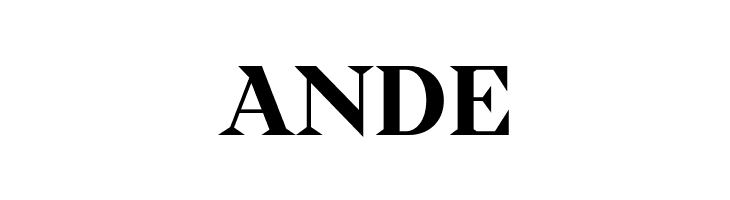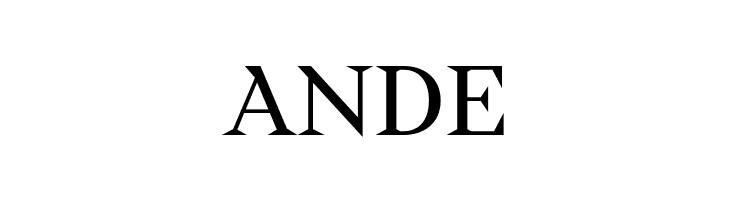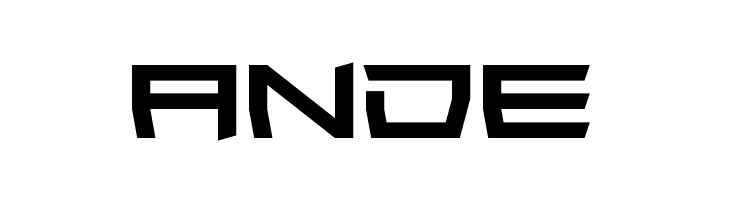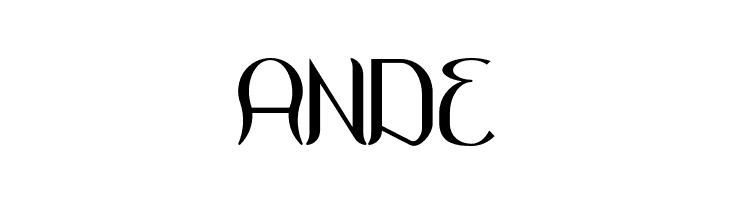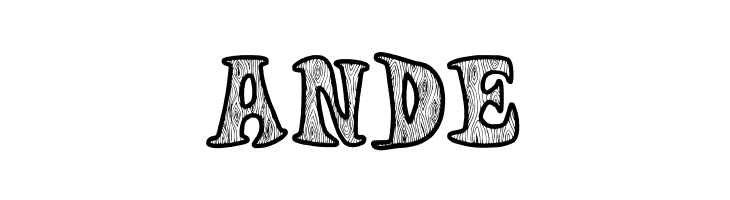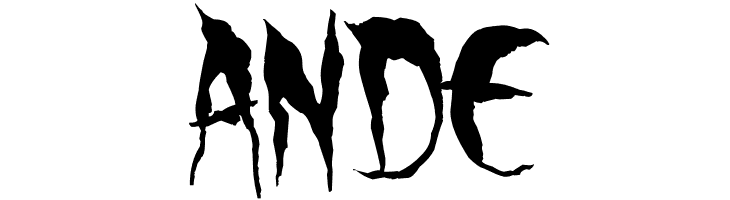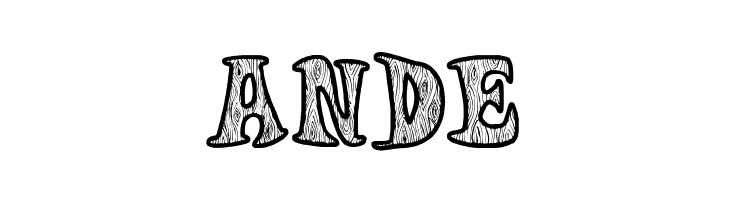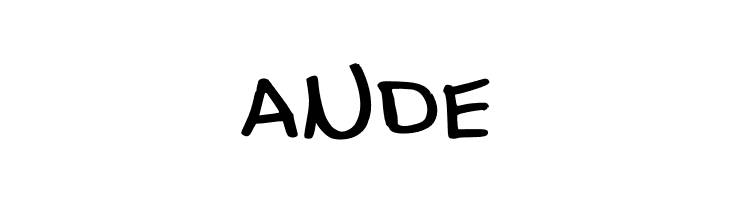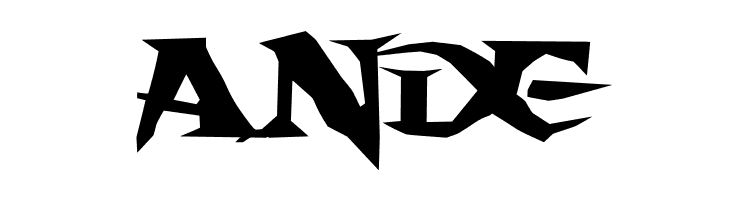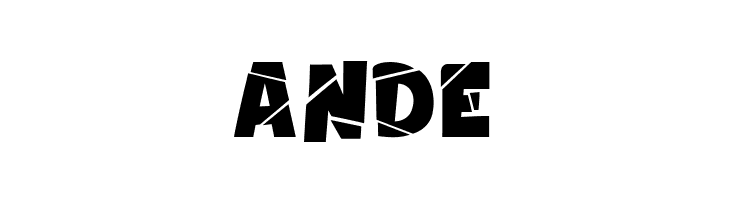
A clean, modern sans-serif font with a semi-bold weight and balanced proportions.
A sleek, semi-bold italic font with a modern and elegant design.
A bold, fragmented font with geometric and modern design elements.
A bold, brush-style font with dynamic, hand-painted strokes.
A bold, jagged font with sharp edges and a wild, energetic style.
A wild, jagged font with a raw, primal aesthetic.
An elegant script font with decorative swirls and modern flair.
A bold, geometric font with a modern and industrial style.
A bold, decorative font with playful curls and thick strokes.
A futuristic, angular font with a bold, tech-inspired design.
A decorative font with a wooden plank design, offering a rustic and handcrafted aesthetic.
A rustic, handcrafted font with a woodcut print style.
A whimsical collection of bold, hand-drawn illustrations with playful and surreal elements.
A bold, rugged font with a hand-carved, vintage woodcut style.
A playful, wood-textured decorative font with a handcrafted feel.
A bold, decorative font with a wood grain texture and hand-drawn style.
A diverse collection of decorative and expressive script fonts with unique flair.
A modern, decorative font with elegant curves and geometric shapes.
A modern, decorative font with flowing curves and sharp edges, perfect for artistic projects.
A triple-striped, geometric font with a bold and modern style.
A bold, modern font with geometric and rounded characters.
A bold, italic, and modern font with a dynamic and energetic style.
A modern, geometric font with rounded edges and a clean, contemporary style.
A sleek, modern italic font with a dynamic, streamlined design.
A modern, geometric font with tall, narrow characters and consistent stroke width.
A sleek, modern, light italic font with elongated characters.
A sleek, ultra-thin, and modern font with a minimalist geometric design.
A sleek, thin, italicized font with a modern and elegant design.
A classic serif font with elegant, sharp serifs and balanced proportions.
A bold serif font with strong strokes and pronounced serifs, ideal for formal use.
A refined serif font with high contrast and elegant serifs.